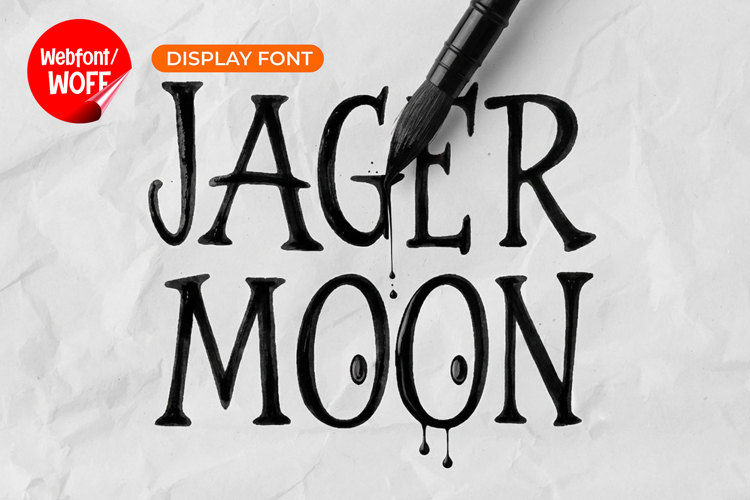
Jager Moon | Clean Display Webfont for Modern Websites
Jager Moon is a clean display webfont designed to deliver a modern, minimal, and highly readable look for website design. With its smooth lines and balanced structure, this font offers a refined visual style that works well across a wide range of digital projects. It is an excellent choice for designers who want a professional and contemporary appearance without unnecessary complexity.
Jager Moon features a complete set of uppercase characters designed with clean and well-proportioned forms. The simplicity of the letter shapes makes it ideal for headlines, banners, hero sections, and featured content. Its clear and structured design helps guide the reader’s attention, making important information easy to notice and understand.
In addition to letters, the font includes numbers and punctuation, allowing it to be used across various elements of a website. It works effectively for pricing displays, navigation menus, promotional content, and informational sections. Every character is crafted to maintain consistency, ensuring a cohesive visual identity throughout the design.
With multilingual support, Jager Moon includes a wide range of accented characters, making it suitable for international websites. This allows content to be presented clearly across different languages while maintaining a unified and clean typographic style. It is a practical option for global brands, corporate websites, and creative platforms.
The clean display style of Jager Moon makes it highly versatile. It works well for business websites, portfolios, technology platforms, e-commerce stores, editorial layouts, and branding-focused pages. Its minimal approach allows it to blend seamlessly with various design styles while still providing a strong visual presence.
Despite its simplicity, Jager Moon is designed to remain visually engaging. The spacing and proportions are carefully adjusted to ensure readability and balance, even in larger display sizes. This makes it effective for both bold headings and structured layout elements.
Jager Moon is a webfont that combines clarity, simplicity, and modern design. Its clean appearance helps create a professional and polished look, making it a reliable choice for digital projects that require strong readability and visual consistency. For websites that aim for a sleek and contemporary style, Jager Moon offers a clean and effective typographic solution.